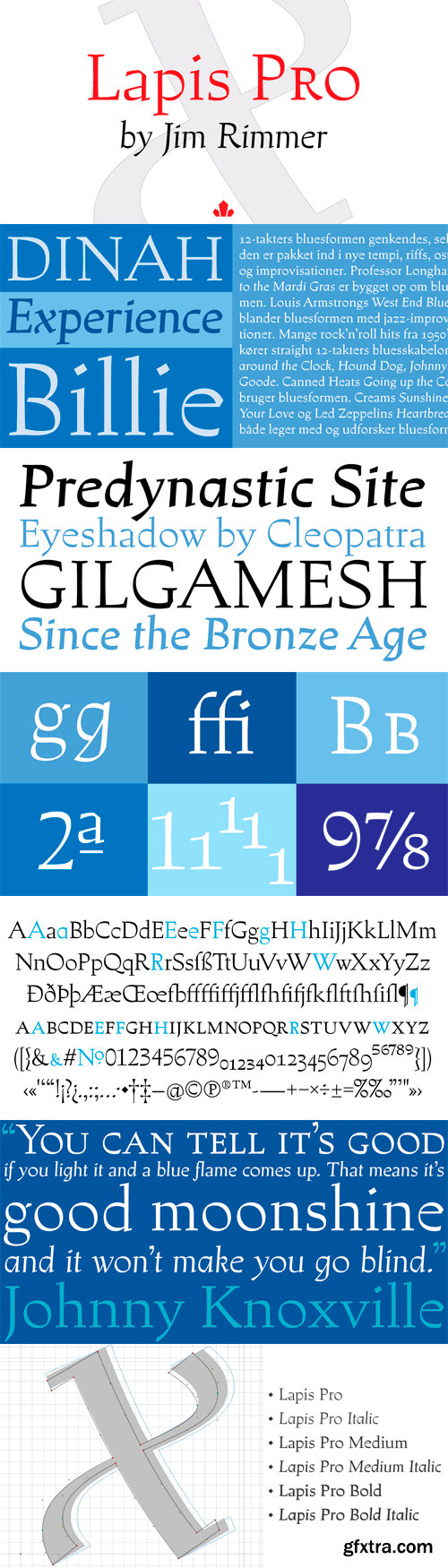
- Lapis was Jim Rimmer’s venture into a territory he'd earlier explored with his Lancelot and Fellowship faces. This time he stayed much longer, dug pretty deep, and had plenty of fun in there. The end result is the kind of mosaic of influences only a guy like Jim could consider, gather, manage and apply in a way that ultimately makes sense and works as a type family. On the surface Lapis seems like something that can be billed as what Jim would have called an “advertising text face”. But under the hood, it’s a whole other story. On top of the calligraphic, nib-driven base Jim usually employed in his faces, Lapis shows plenty of typographic traits from a variety of genres, from Egyptian to Latin, from blackletter angularity to Dutch-like curvature, with an overall tension even reminiscent of wood type. There are some Goudy-informed shapes that somehow fit comfortably within all this. Then it’s all strung together with a mix of wedged, tapered and leaning serifs, placed with precision to reveal expert spontaneity and a great command of guiding the forms through counterspace.